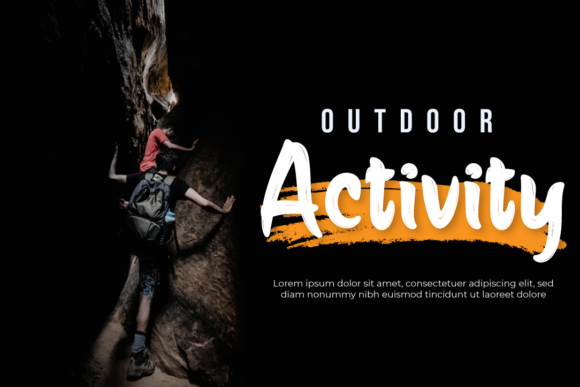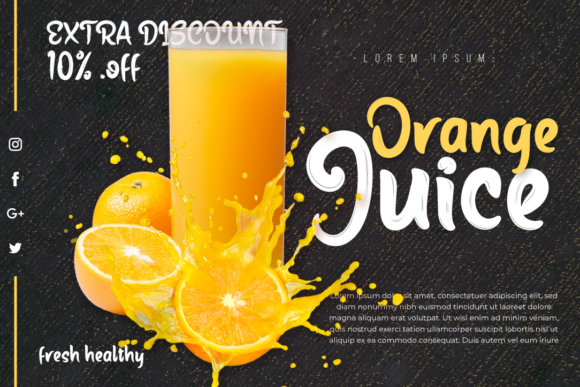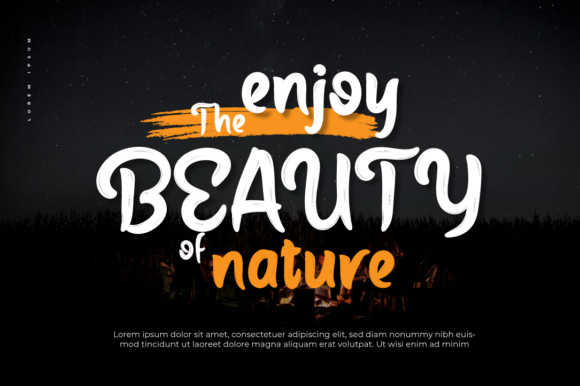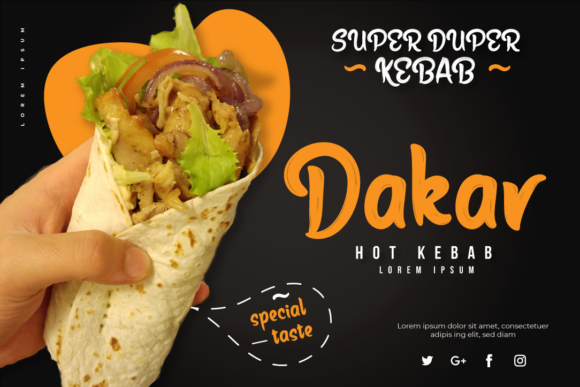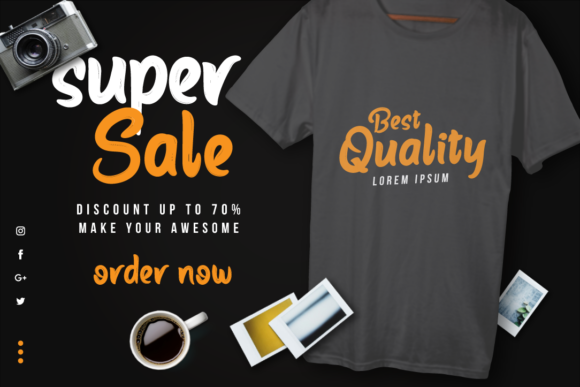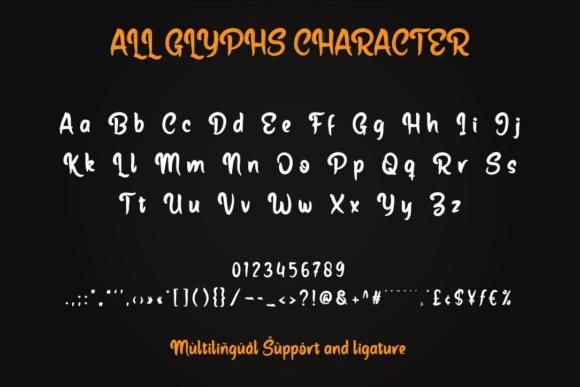
Introducing Enfetter Font: The Ultimate Brush Handwritten Font for Creative Designs
Are you tired of using the same old fonts for your designs? Do you want to create something original and outstanding? Look no further than Enfetter Font, a beautiful brush handwritten font that’s perfect for making a statement. In this article, we’ll explore the features and benefits of Enfetter Font, and show you how it can elevate your designs to the next level.
What is Enfetter Font?
Enfetter Font is a brush handwritten font that’s designed to add a personal touch to your designs. With its unique and expressive lettering style, Enfetter Font is perfect for creating original and outstanding designs that stand out from the crowd. Whether you’re a designer, craftsperson, or DIY enthusiast, Enfetter Font is a versatile and easy-to-use font that’s sure to inspire your creativity.
Features of Enfetter Font
So, what makes Enfetter Font so special? Here are just a few of its key features:
- Brush Handwritten Style: Enfetter Font has a beautiful, hand-brushed look that’s perfect for creating authentic and personalized designs.
- Unique Lettering Style: Each letter in Enfetter Font has its own unique character and personality, making it perfect for creating eye-catching designs.
- High-Quality Design: Enfetter Font is designed with high-quality and precision, ensuring that your designs look professional and polished.
What Can I Use Enfetter Font For?
Enfetter Font is a versatile font that can be used for a wide range of design projects, including:
- Branding: Create a unique and memorable brand identity with Enfetter Font.
- Advertising: Use Enfetter Font to create eye-catching ads that grab attention.
- Posters and Banners: Create stunning posters and banners with Enfetter Font.
- Packaging: Add a personal touch to your product packaging with Enfetter Font.
- Podcasts: Use Enfetter Font to create engaging and personalized podcast artwork.
- Outdoor Activities: Create fun and colorful designs for outdoor activities, such as hiking or camping.
- Apparel: Design unique and stylish apparel with Enfetter Font.
- Quotes and Inspirational Messages: Create inspiring and motivational designs with Enfetter Font.
- Beverages: Use Enfetter Font to create eye-catching labels and branding for your favorite beverages.
Why Choose Enfetter Font?
So, why should you choose Enfetter Font for your design projects? Here are just a few reasons:
- Originality: Enfetter Font is a unique and original font that’s sure to make your designs stand out.
- Versatility: Enfetter Font can be used for a wide range of design projects, from branding to packaging.
- High-Quality Design: Enfetter Font is designed with high-quality and precision, ensuring that your designs look professional and polished.